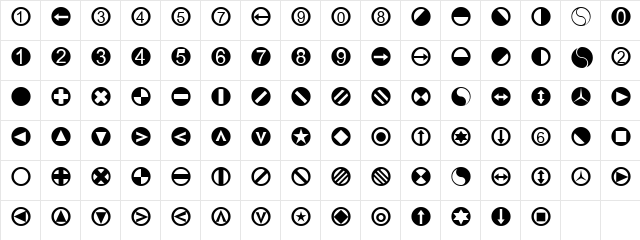
LTTapestry Circle Regular Free Font
Design Context for LTTapestry Circle
LTTapestry Circle is a composed and adaptable typeface that performs quietly and consistently across a wide range of design contexts.
Pro Tip: Use LTTapestry Circle in both headline and body roles to test its range before committing to a single application.